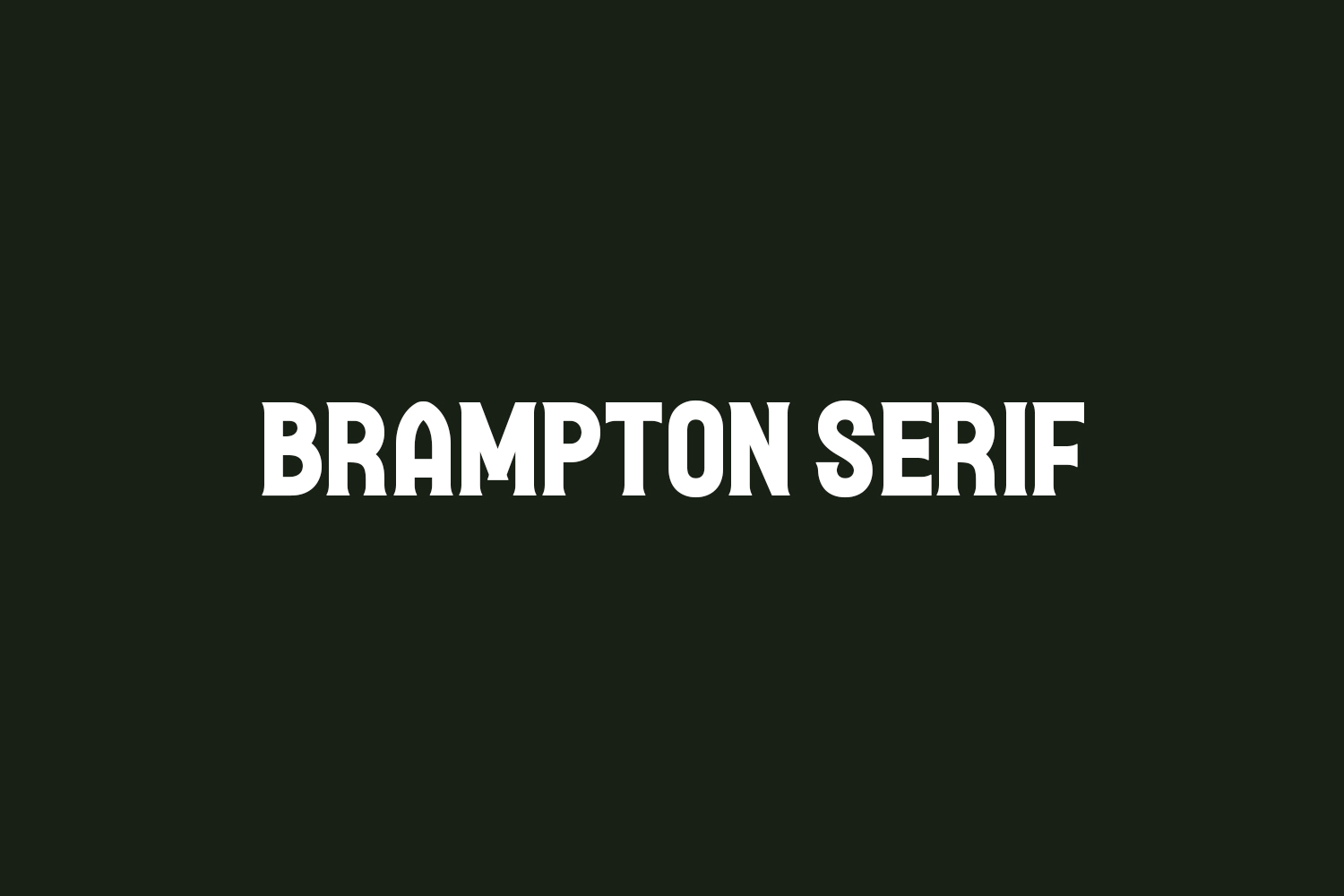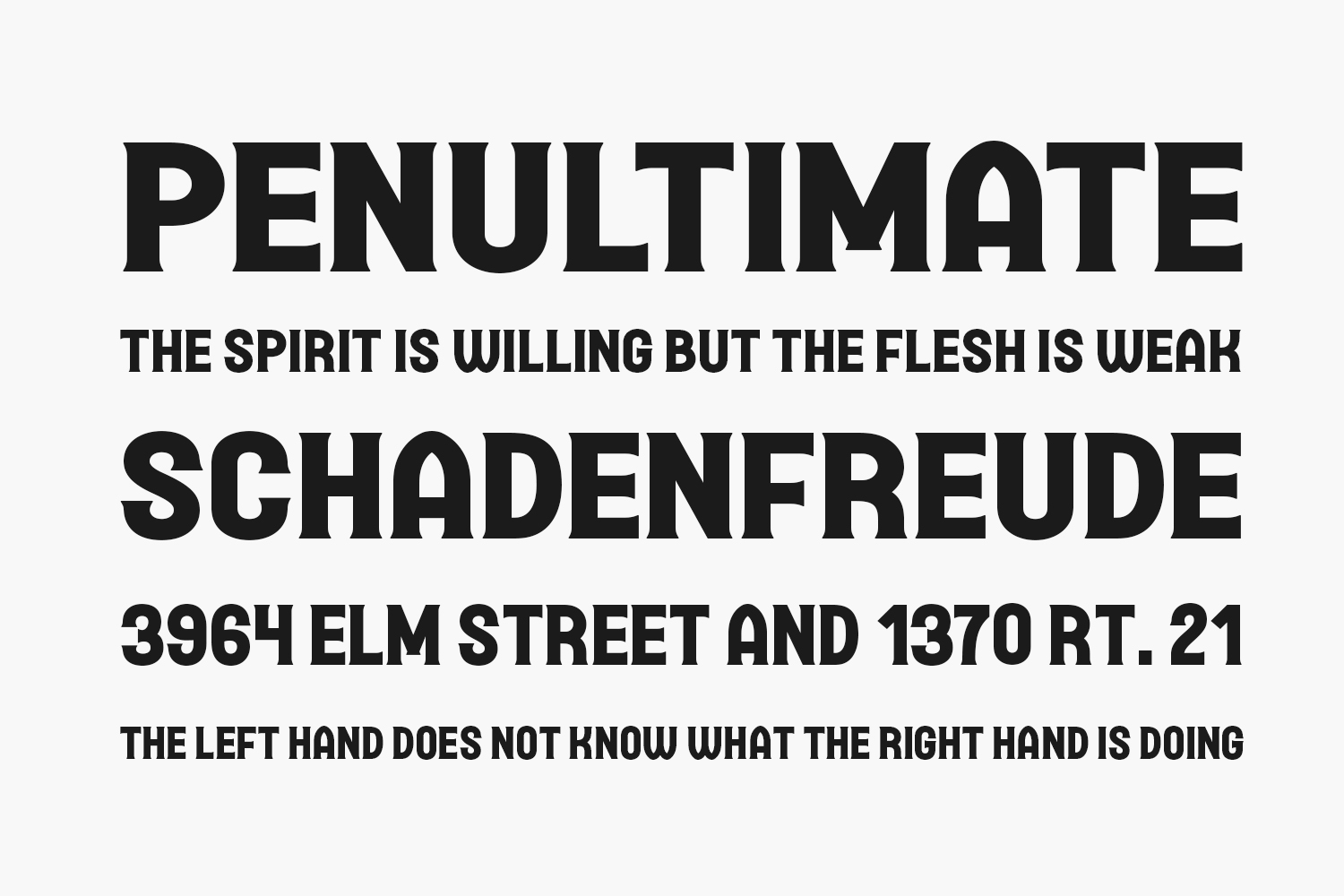
Introducing Brampton Free Font – a comprehensive package featuring a monoline script, a serif, and a sans serif meticulously designed to infuse your headlines and logotype projects with a touch of sophistication. This versatile font exudes strength, confidence, and dynamism, elevating your designs with a nostalgic charm that captivates. Brampton Serif Free Font was designed by Letterhend Studio and is free for personal use only. Please purchase the full version for commercial use.